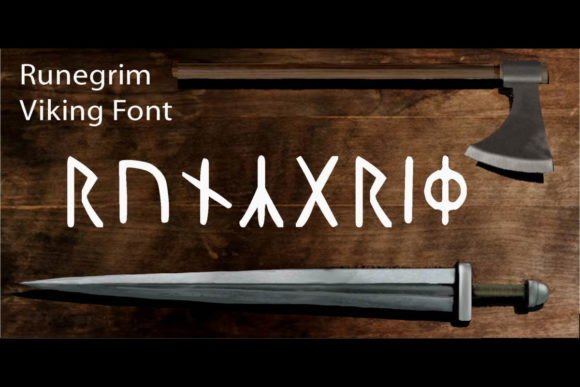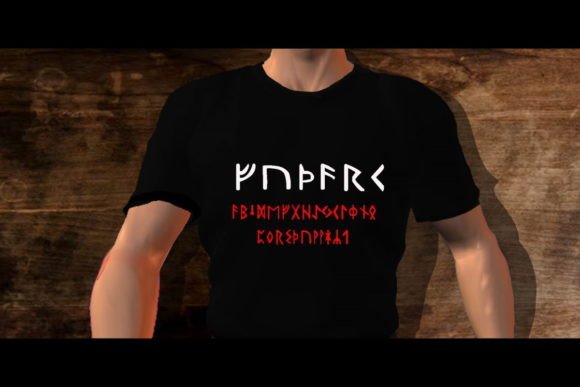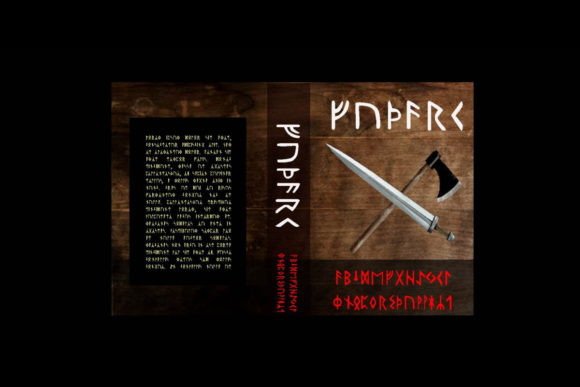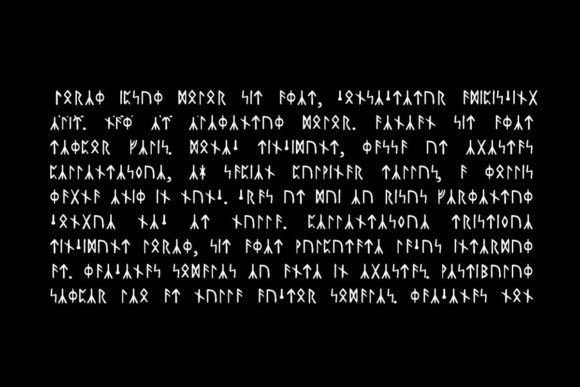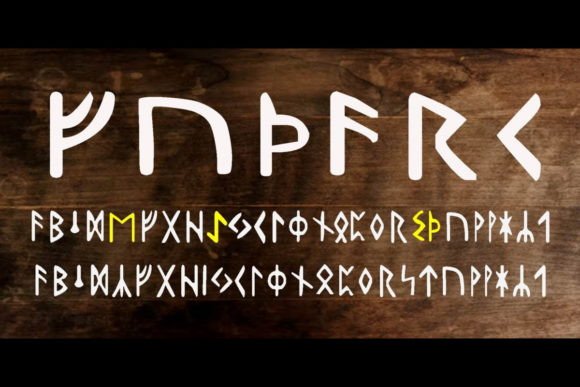
“Runegrim” is based on Ancient Viking Rune Script. This font is best for Clothing, apparel, and any handicraft. This font is Very useful for people who are not familiar with the Unicode format of ancient font.
Runegrim Font